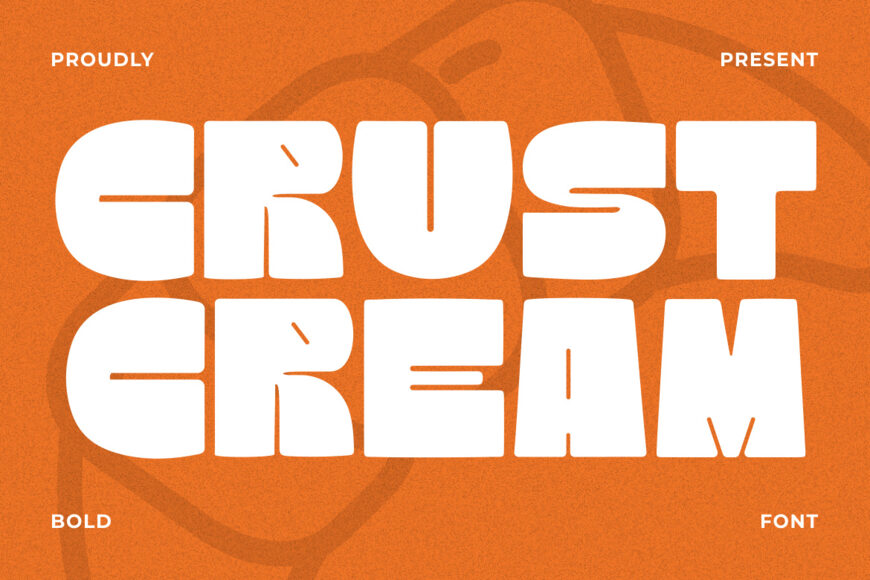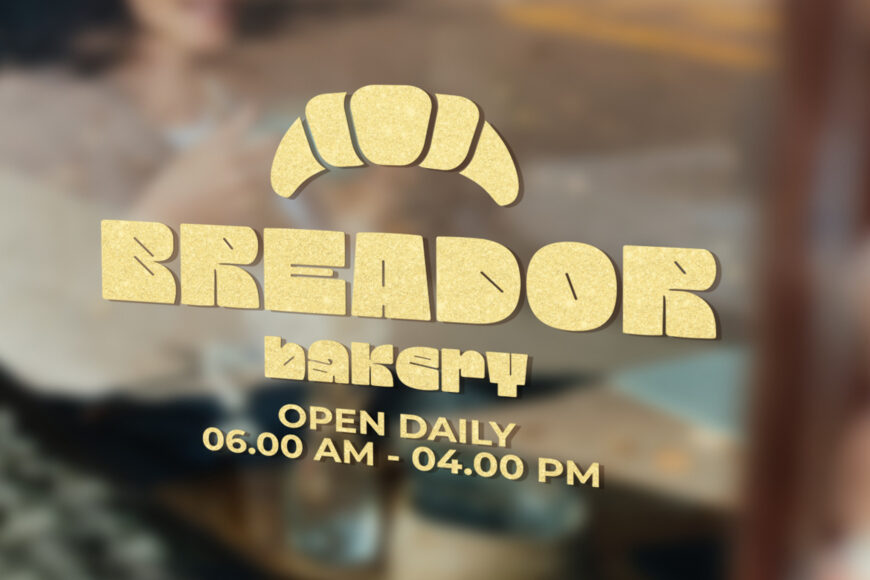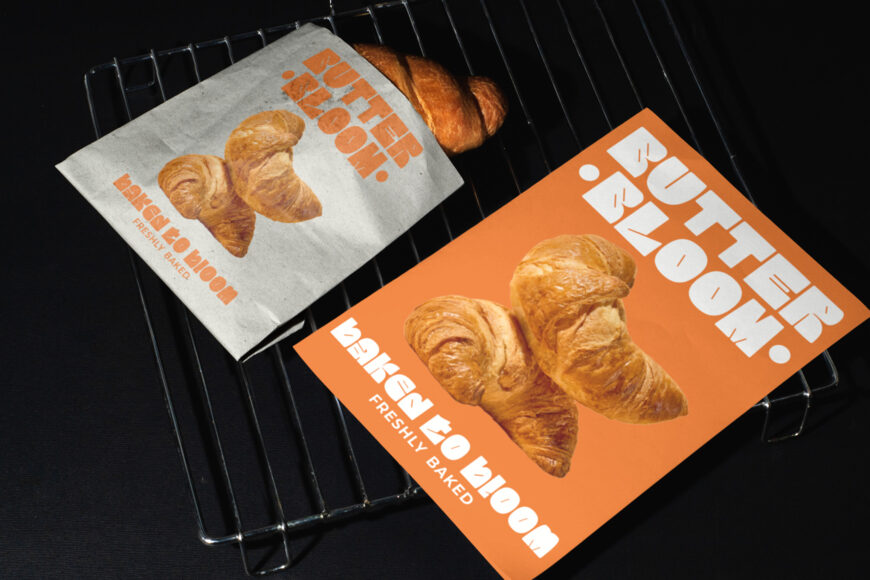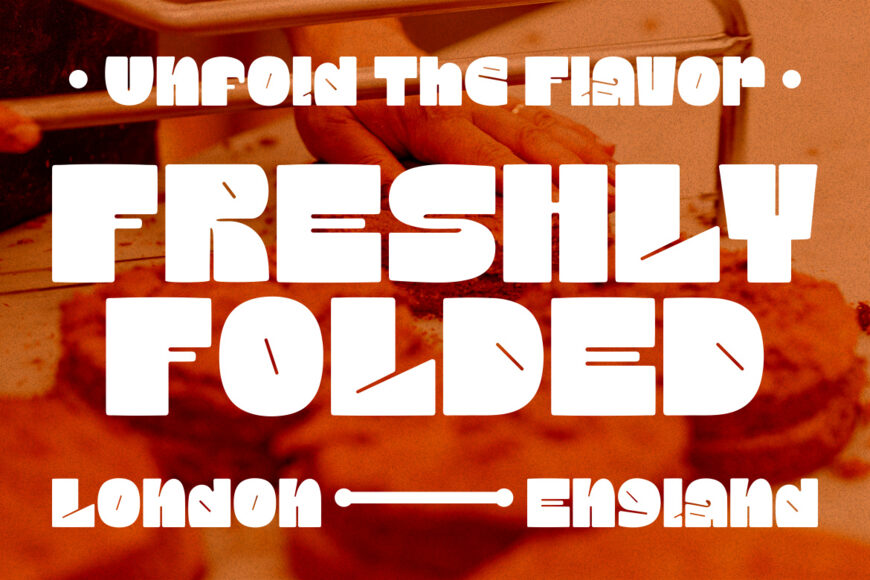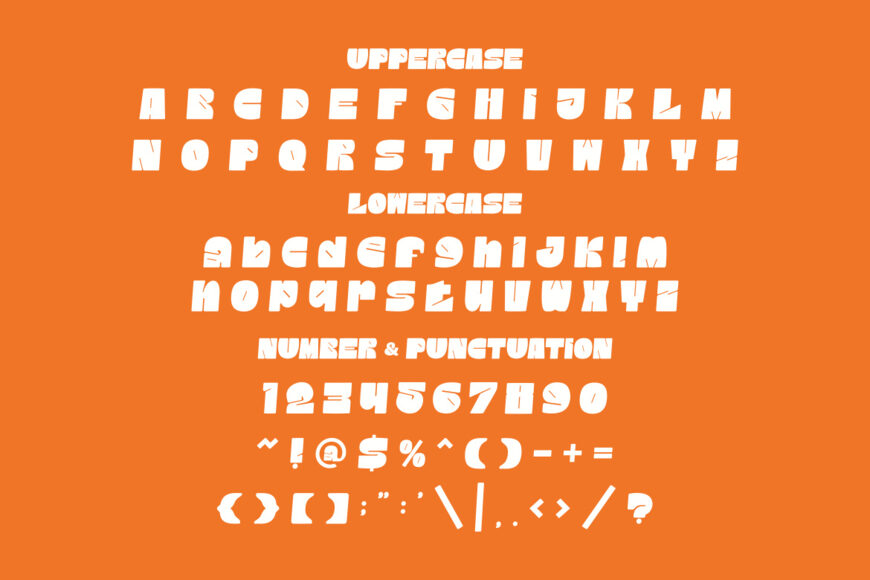
Crust Cream Font delivers a thick display style with strong visual impact. The letterforms are wide, heavy, and chunky, creating instant attention in large layouts. Rounded corners soften the massive shapes and keep the design friendly. Tight spacing adds power, while solid strokes build a confident presence. Small carved cuts and angled details give motion and personality.
This style feels playful, retro, modern, and energetic at once. Crust Cream Bold Font fits brands that want loud recognition and memorable identity. It works well for bakery shops, dessert stores, coffee brands, snack labels, street food logos, beverage packaging, and creative retail businesses.